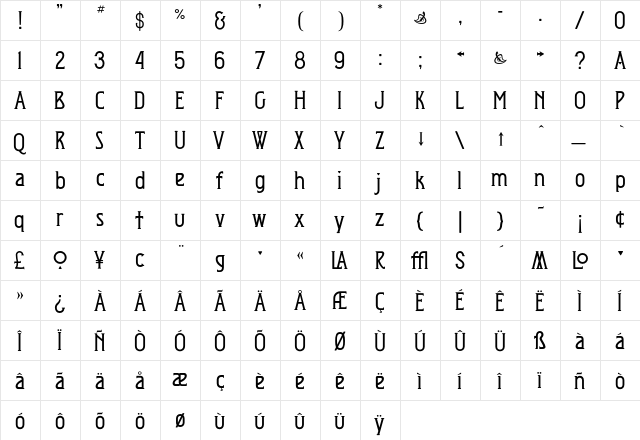
JMExpositionRoundedMedium Regular
Design Context for JMExpositionRoundedMedium Typeface
JMExpositionRoundedMedium softens its letterforms with rounded terminals, giving it an approachable, friendly quality that works well in consumer-facing and digital contexts.
Well-suited to UI design, mobile interfaces, and any brand that wants approachability without sacrificing clarity.
Font Pairing: Pairs well with a rounded or humanist sans for body copy, maintaining the friendly tone without relying on JMExpositionRoundedMedium to carry extended reading.
Pro Tip: Use JMExpositionRoundedMedium for UI elements, app interfaces, and anywhere a friendly, approachable tone needs to be maintained without sacrificing clarity.